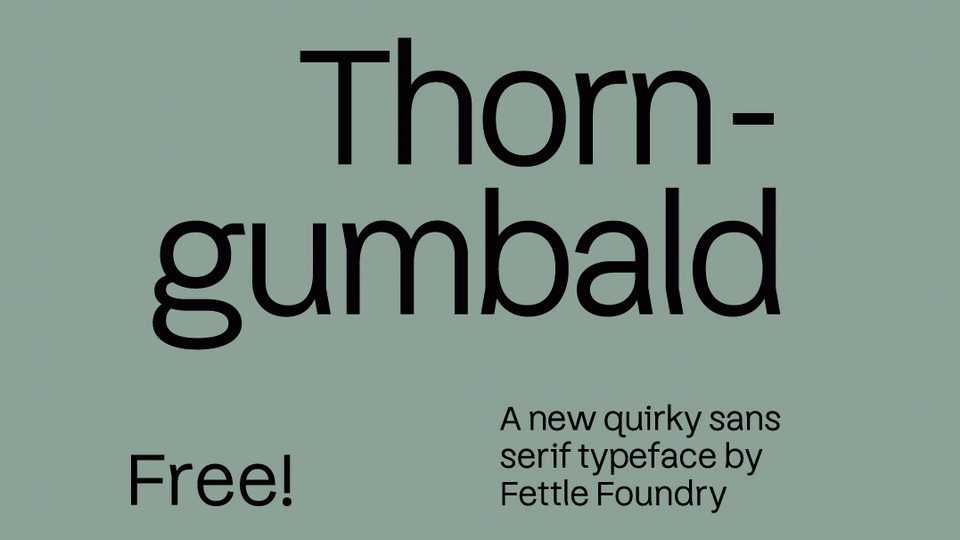
Download Thorngumbald font, a playful sans serif typeface designed to reduce similarity between certain letters and increase legibility for people with impaired vision.
Designer: Fettle Foundry